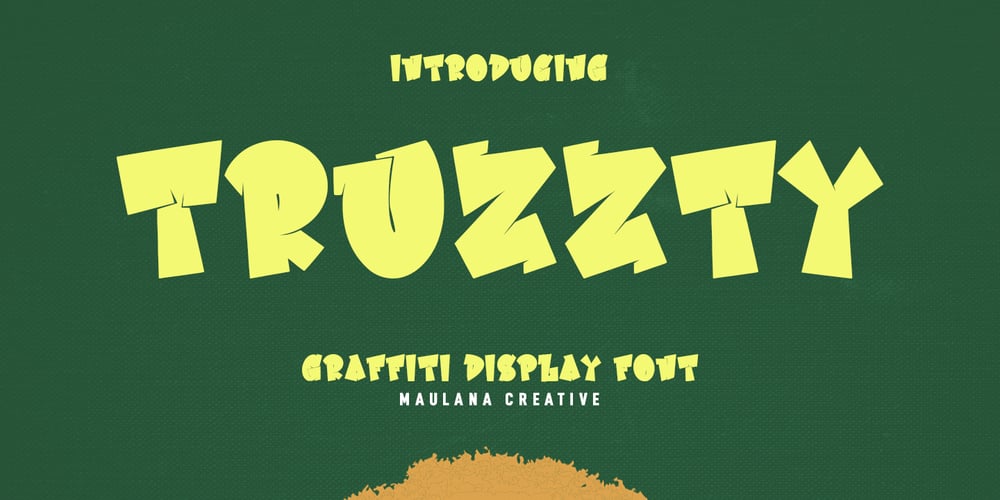
MC Truzzty Font Family was designed by Gilang Maulana and published by Maulana Creative. MC Truzzty contains 1 styles and family package options. Truzzty graffiti display font. Bold stroke, fun character with a bit of ligatures and alternates. To give you an extra creative work. Truzzty graffiti display font support multilingual more than 100+ language. This font is good for logo design, Social media, Movie Titles, Books Titles, a short text even a long text letter and good for your secondary text font with script or serif. Make a stunning work with Brandon Truzzty graffiti display font. –UppercaseCheers,Maulana Creative